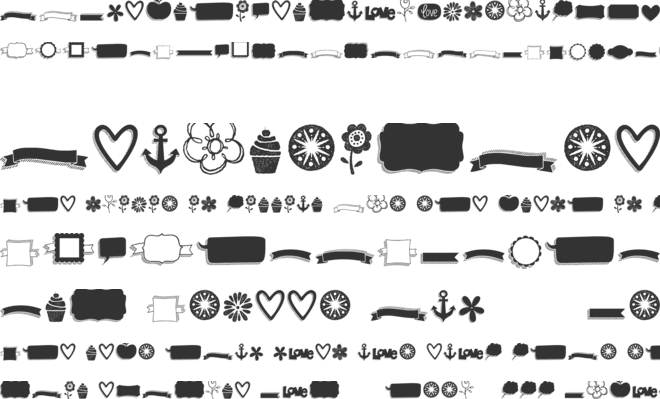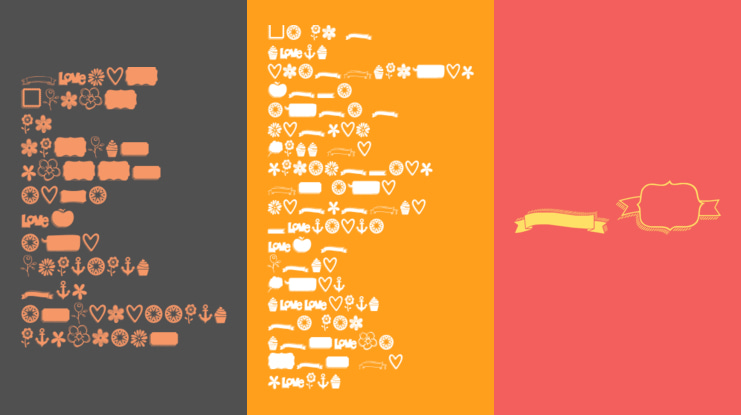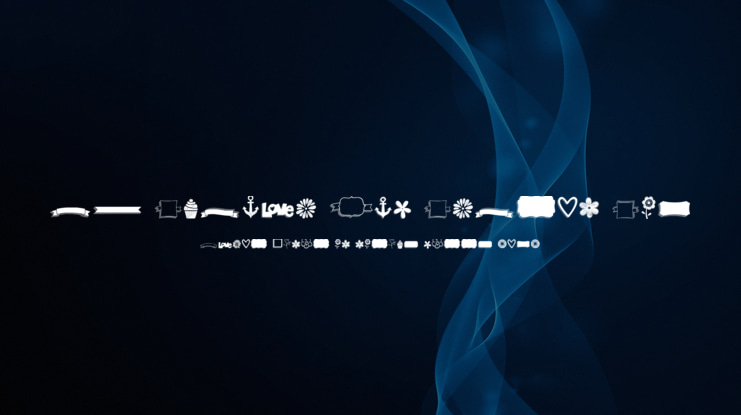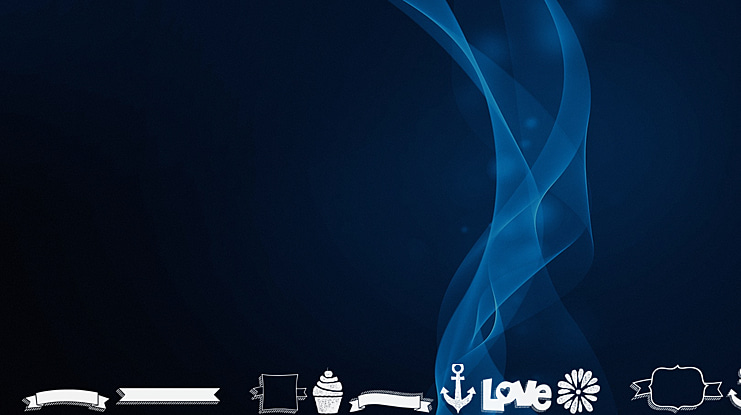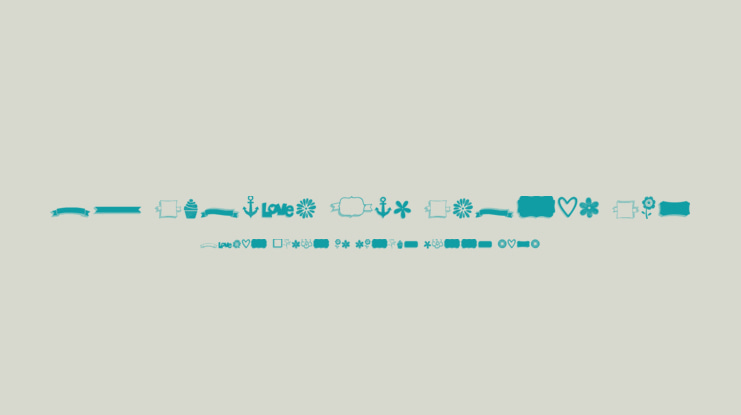
KG Flavor And Frames Six Font
Kimberly Geswein
Designed for the chalkboard art lovers of the world, these frames are super cute and easy to use! They are remixes of the shapes used in my previous flavor and frames fonts specifically created for chalk art.